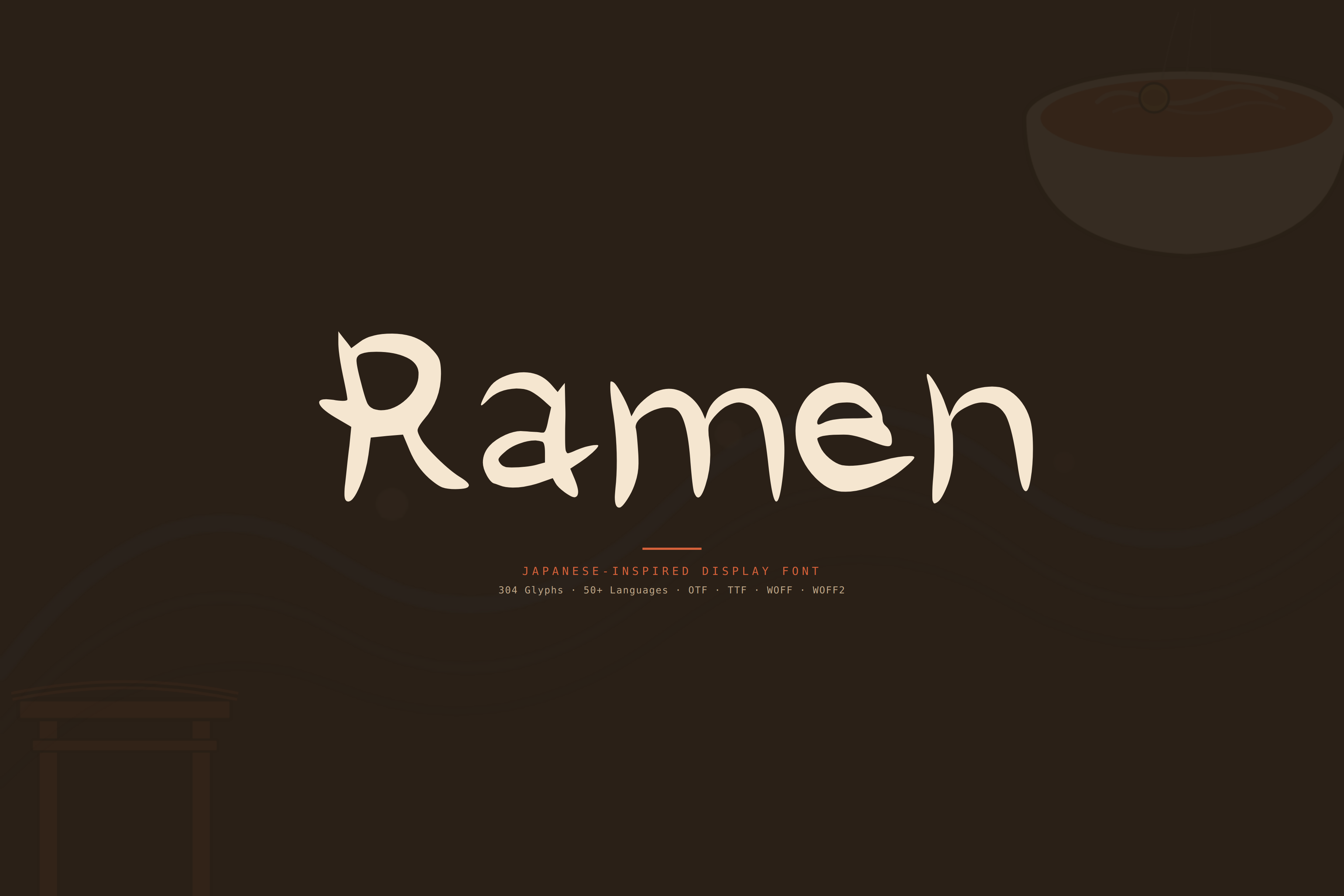
Ramen — Japanese Display Font
Introducing Ramen — a bold, quirky display font inspired by Japanese hand-lettering. Every letter has that unmistakable Asian street-food energy — imperfect, full of character, and impossible to ignore. With 304 glyphs and 50+ language support, it's one of the most complete Japanese-style fonts on the market.
Ramen isn't trying to be clean. It's trying to be memorable.
WHY RAMEN? Most "Asian-inspired" fonts have 200 glyphs and skip half of Europe. Ramen gives you 304 glyphs covering 50+ languages — your French bakery client, your Polish food truck, your Turkish café can all use it. It's not just a novelty font. It's a working typeface with serious character.